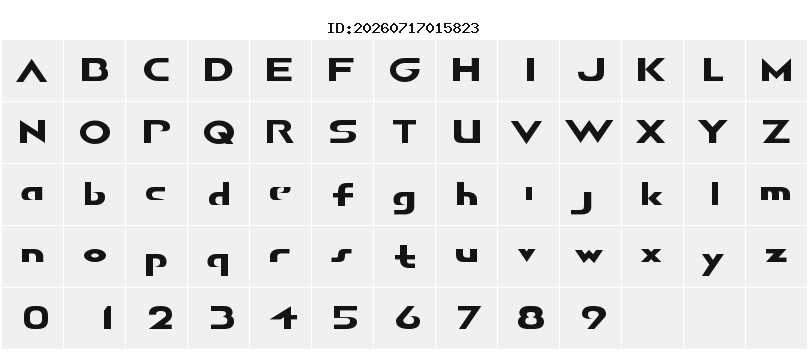
• Font Name: AIRBORNE GP
• Designer: Gustavo Paz L.
AIRBORNE GP.ttf is a modern, elegant sans-serif font designed for ultimate readability and visual harmony. Perfect for branding, headlines, web design, and print materials.